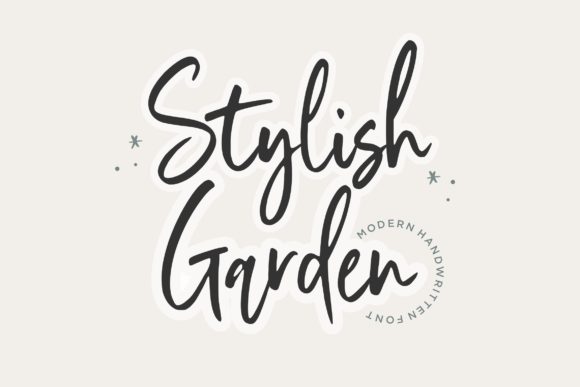
Enter the captivating world of Stylist Garden Font, a script masterpiece meticulously crafted by Balpirick. This exquisite creation dances across your screen, enchanting you with its graceful strokes and elegant curves. Stylist Garden is not just a font; it's an expression of artistry, a testament to the power of handwritten beauty in a digital world.
Immerse yourself in the charm of Stylist Garden's calligraphic influences, perfectly balanced with a modern, fresh aesthetic. Each letterform is a work of art, lovingly rendered with delicate details that capture the essence of handwritten elegance. Whether you're a seasoned designer or just starting your creative journey, Stylist Garden will elevate your projects to new heights.
Harness the versatility of Stylist Garden and let your imagination run wild. This font is a chameleon of creativity, seamlessly adapting to a myriad of design projects. From eye-catching logos and branding elements to personalized invitations and social media posts, Stylist Garden adds a touch of sophistication and charm wherever it's used.
Step into the spotlight with Stylist Garden, the perfect font for vinyl lettering. Its bold presence and flowing curves make it the star of any crafting project. Create custom decals, personalized signs, and stunning home décor that will leave a lasting impression. Stylist Garden transforms ordinary surfaces into canvases of creativity, inspiring you to express your unique style in every corner of your world.
Indulge in the creative freedom that Stylist Garden offers. Its user-friendly nature makes it a joy to work with, allowing you to effortlessly bring your design visions to life. Experience the magic of Stylist Garden and watch as your projects blossom into masterpieces.